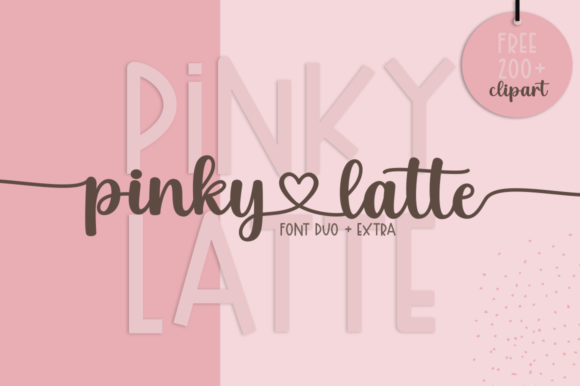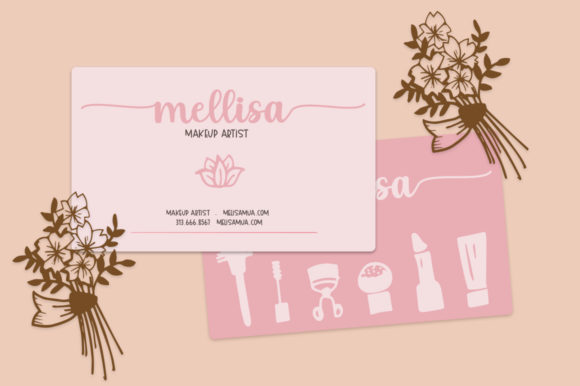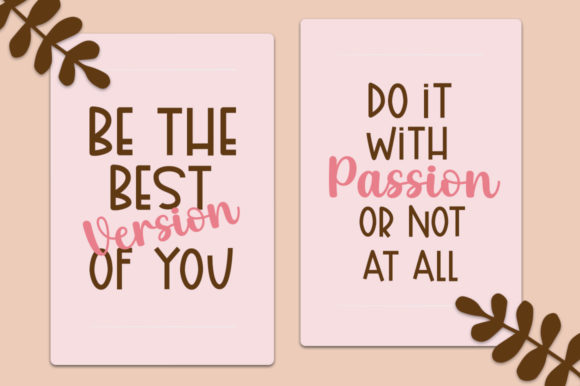
Pinky Latte Font
About the Pinky Latte Font
Meet Pinky Latte Font, a stunning font that brings a touch of elegance and professionalism to any design. Pinky Latte is an elegant and dainty duo font (handwritten and sans serif), that features sweet and delicate swashes. This original look will appeal to a wide range of crafty ideas, from letterheads and titles, to stationery.
Pinky Latte excels in applications requiring a touch of delicate elegance, such as logos, short headlines, invitations, or packaging for high-end products. Its handcrafted feel makes it ideal for projects emphasizing a feminine or whimsical aesthetic. Avoid using it for large blocks of text or UI elements; the swashes and thin strokes would likely reduce readability.
The handwritten style of Pinky Latte pairs well with clean, geometric sans-serif fonts like Montserrat or Open Sans for a balanced contrast. For a more luxurious feel, consider pairing it with a classic serif like Garamond or Didot. Avoid pairing it with other script fonts, which would create visual clutter.
Pinky Latte’s overall personality is best described as elegant and charming, conveying a sense of sophistication and gentle femininity. Brands focusing on beauty, fashion, artisanal goods, or boutique businesses would find it particularly suitable.
Pinky Latte Font Usage Examples
Pinky Latte Font Example